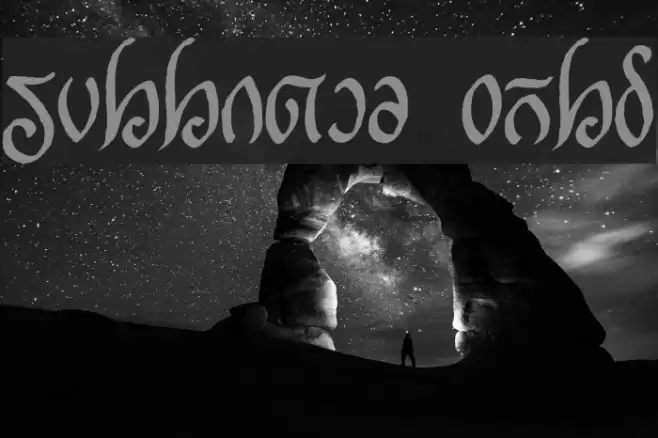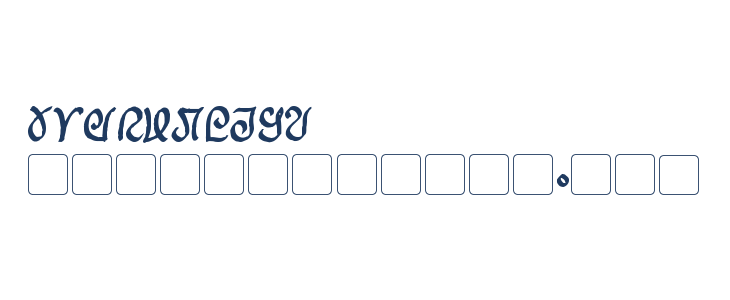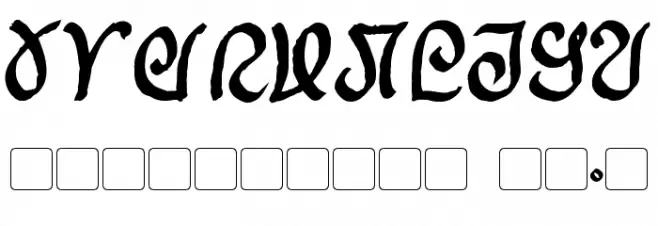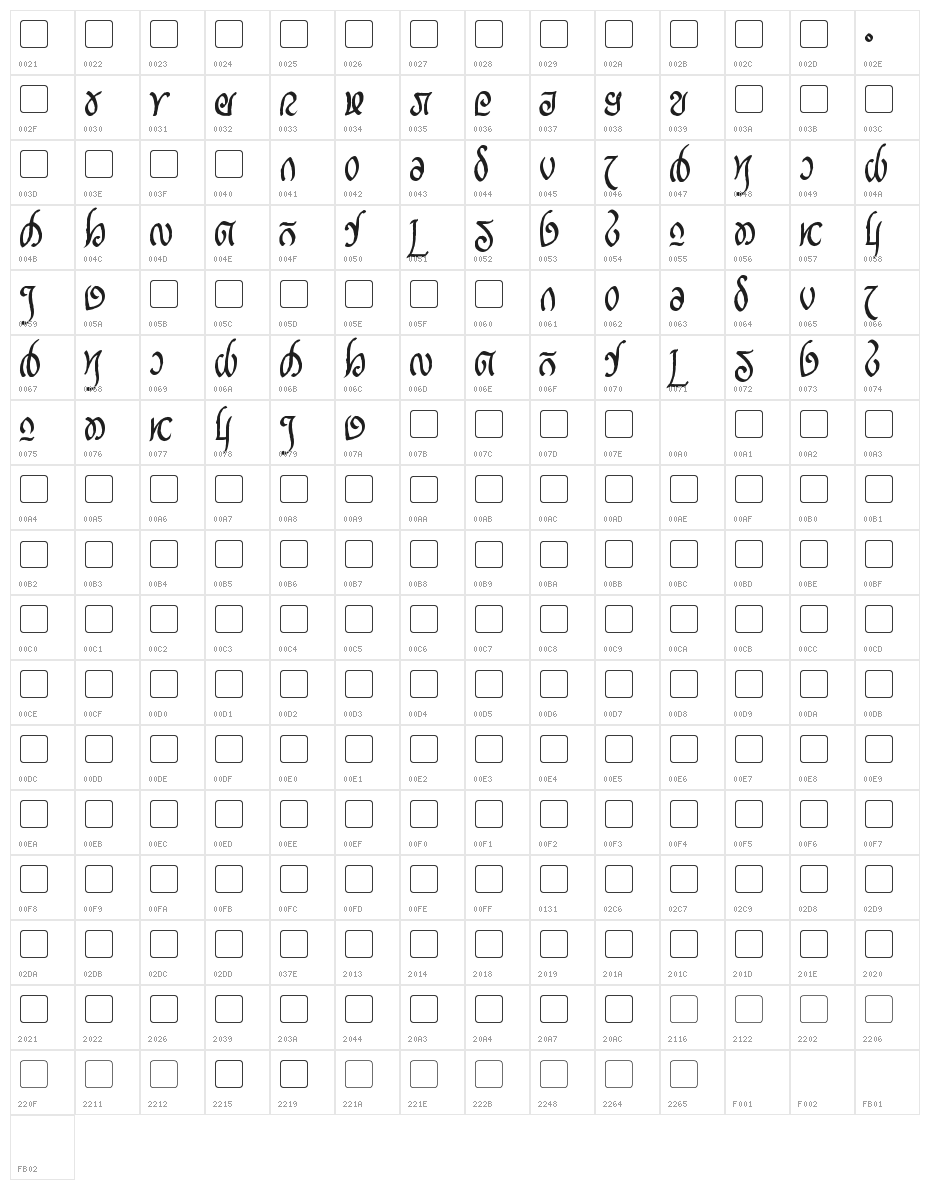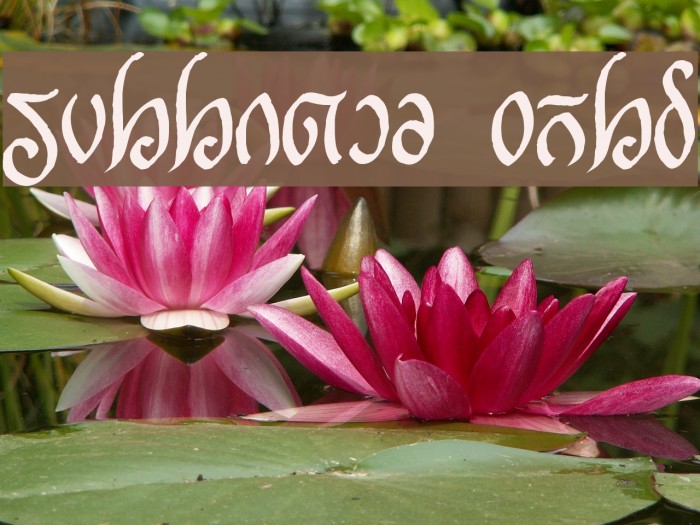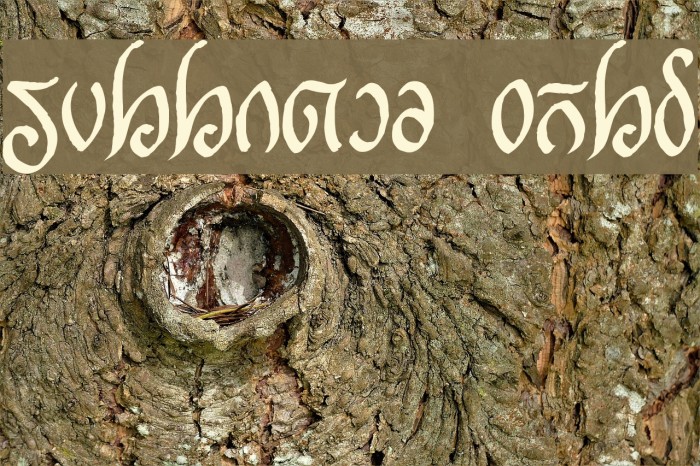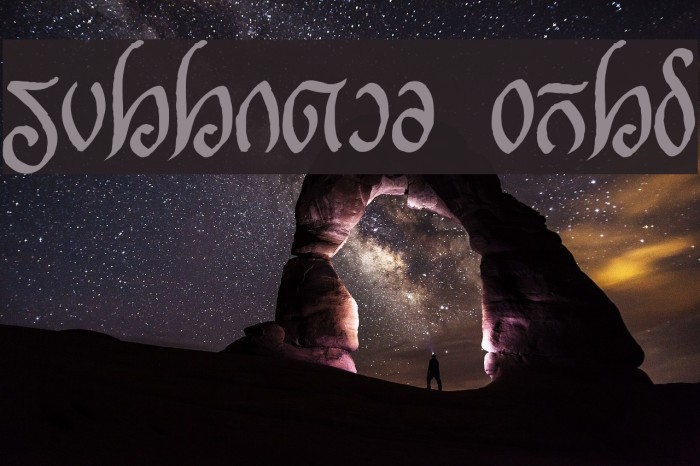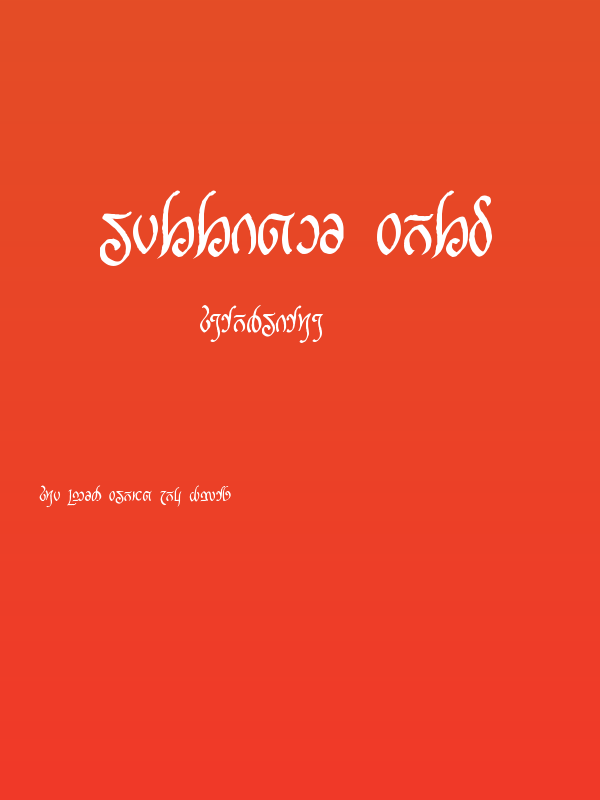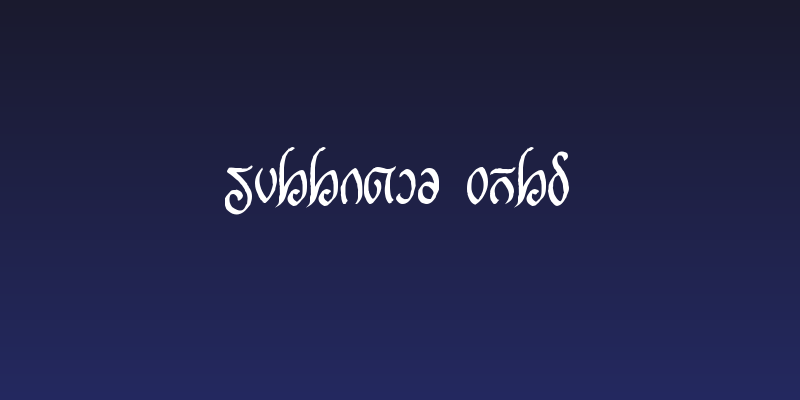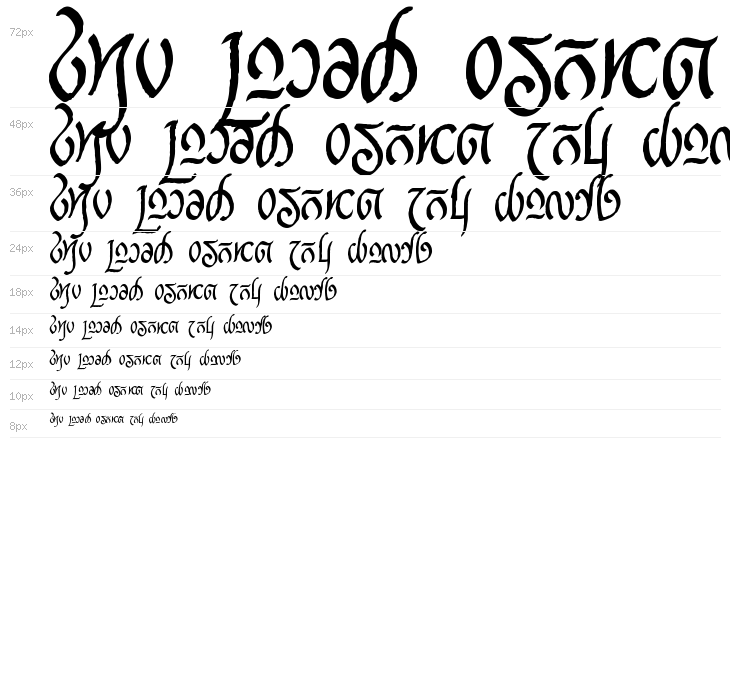
Rellanic Bold Font
Rellanic Bold Description
This font features a unique, decorative style with a calligraphic influence. The characters are bold and have a flowing, script-like appearance, reminiscent of ancient or fantasy scripts. The strokes are thick and consistent, providing a strong visual impact. The letters are closely spaced, enhancing the cohesive look of the text. This font is ideal for creating a mystical or historical atmosphere in design projects. Its distinct style makes it suitable for thematic headings or artistic displays.
A bold, decorative font with a calligraphic, fantasy-inspired style from Uncategorized fonts.
- Proposed Projects: Ideal for fantasy-themed projects, game design, book covers, and artistic posters.
- Character Spacing: Tight